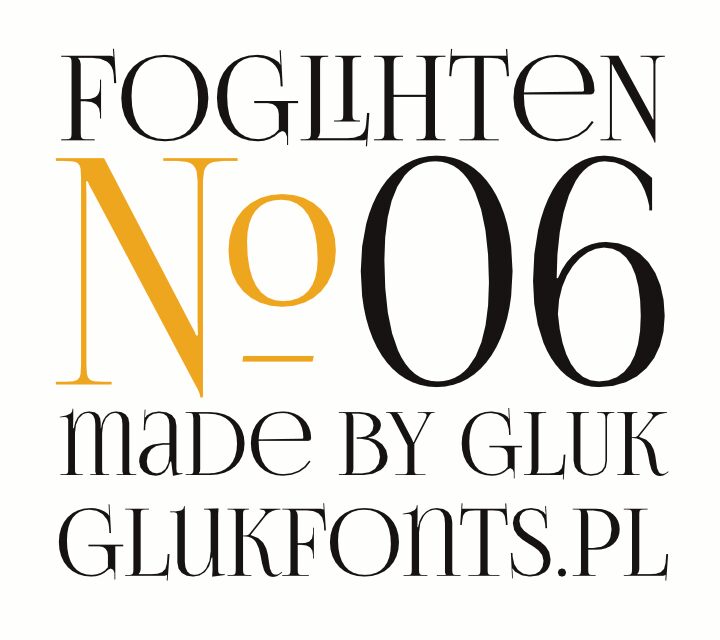
FoglihtenNo06
Foglihten No 06 by Gluk is a free high-contrast serif font with a refined, fashion-minded edge. Its towering capitals combine broad black curves, needle-thin hairlines, and unusually tight joins, producing a dramatic texture that feels both elegant and slightly eccentric.
Fashion and the arts are its clearest territory. It can lend magazine covers, fragrance packaging, and cultural event posters the severe glamour of an editorial masthead. The exaggerated stroke changes also echo sharp silhouettes in fashion photography and illustration.